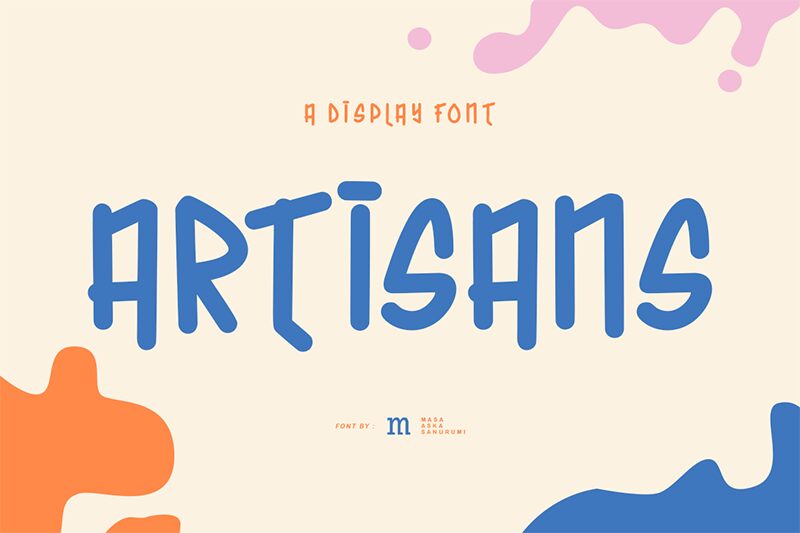
Artisans, designed by Masa Aska Sanurumi, is a captivating handwritten font that exudes a charming and authentic aesthetic. Its condensed width lends a sense of elegance and refinement, while the organic, free-flowing strokes evoke a heartfelt, hand-crafted quality. The font's balanced proportions and dynamic curves create a seamless, cohesive appearance, making it visually appealing and engaging.
Artisans' versatility shines through its ability to adapt to a wide range of design contexts, from high-end branding and editorial layouts to heartwarming stationery and packaging. Its distinctive personality can lend a personal touch to various creative projects, making it a compelling choice for designers seeking to convey a sense of warmth, craftsmanship, and authenticity.